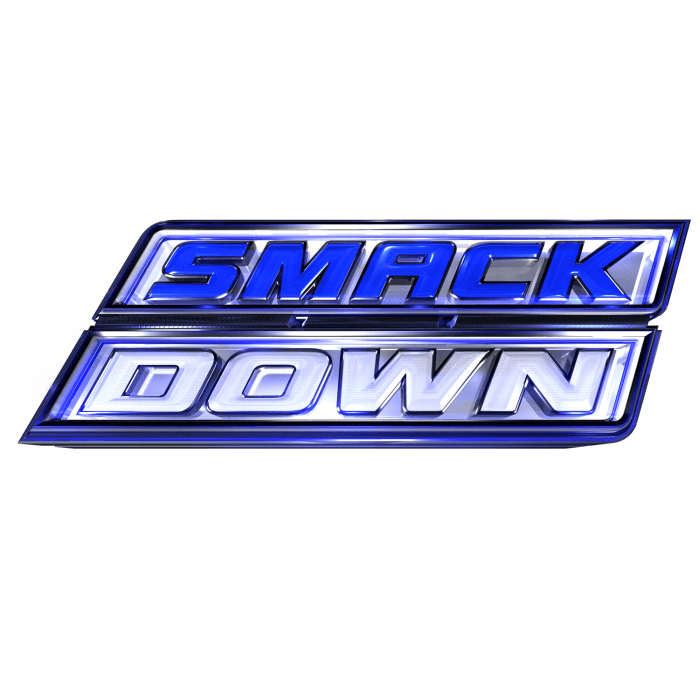
WWE SmackDown Font
Fonts in UseWWE SmackDown is a professional wrestling television show featuring WWE superstars from the SmackDown brand, delivering thrilling matches, intense rivalries, and captivating storylines to entertain fans worldwide.
The logo of the TV program seems to be designed based on ITC Bolt font, a square sans serif typeface created by Ronne Bonder and Tom Carnase. The logo letters appear to be manually slanted and elongated, giving it a distinct style.